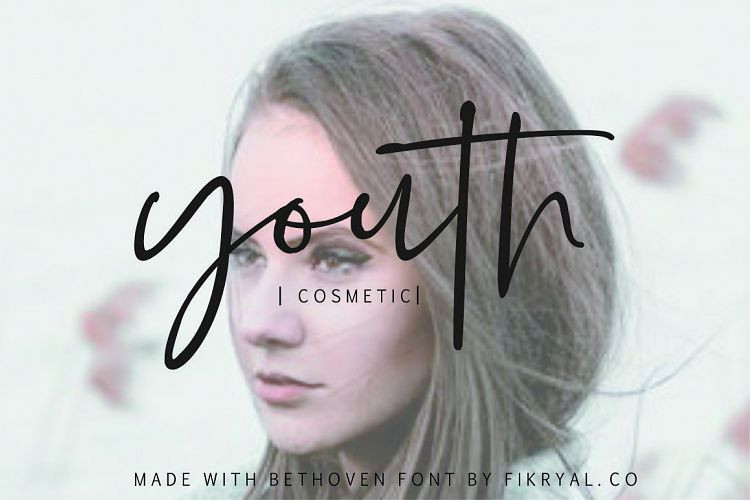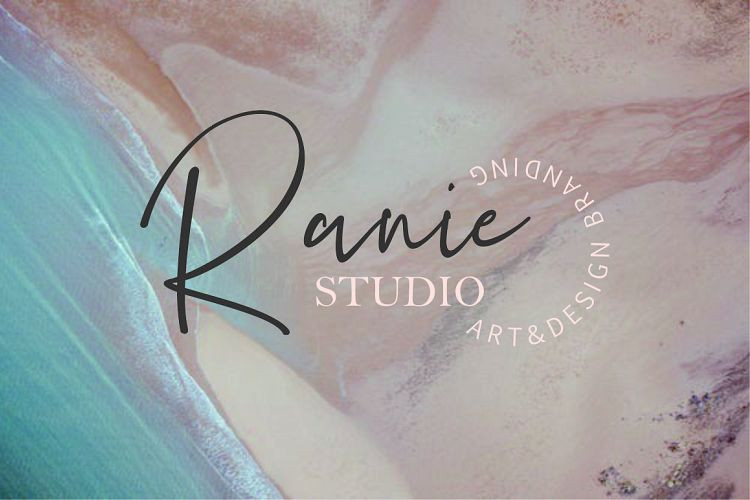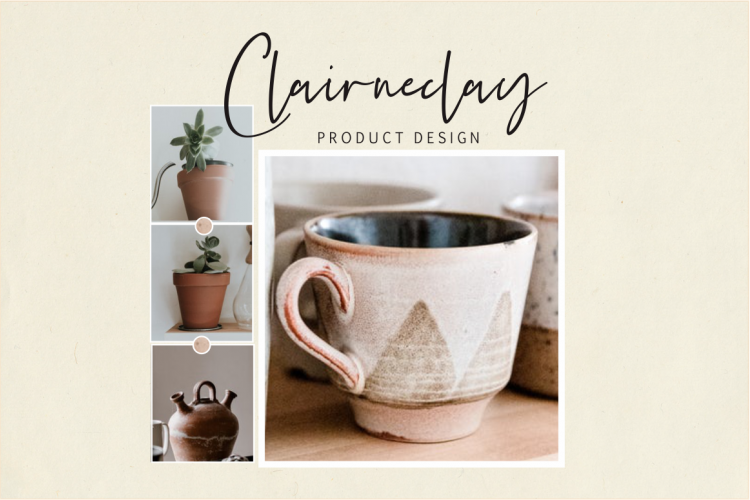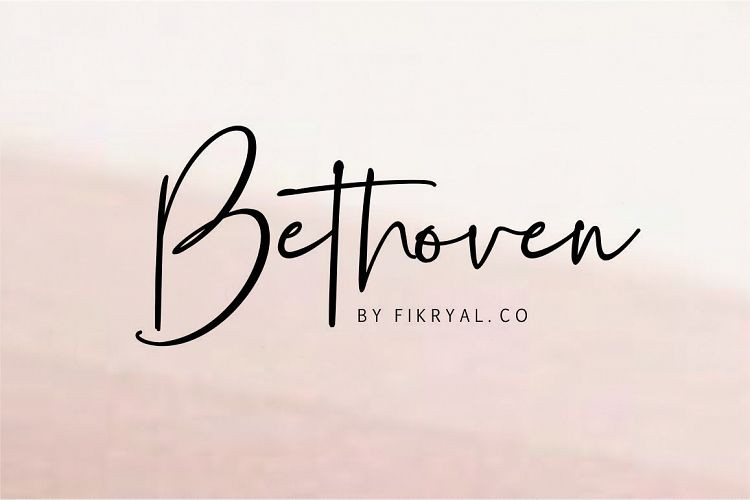
Bethoven Handwritten Font
This a sweet handwritten script font made of all things lovely and sweet. It’s perfect for branding, blogs and so much more. Introducing Bethoven Font. It is designed and shared by fikryal. Bethoven Handwritten Font is a new modern & stylish handwritten font. I’ts Perfect for logo,branding, invitation, tittle, wedding designs, social media posts, advertisements, product packaging, product designs, label, photography, watermark, special event,magazine,web design,etc.